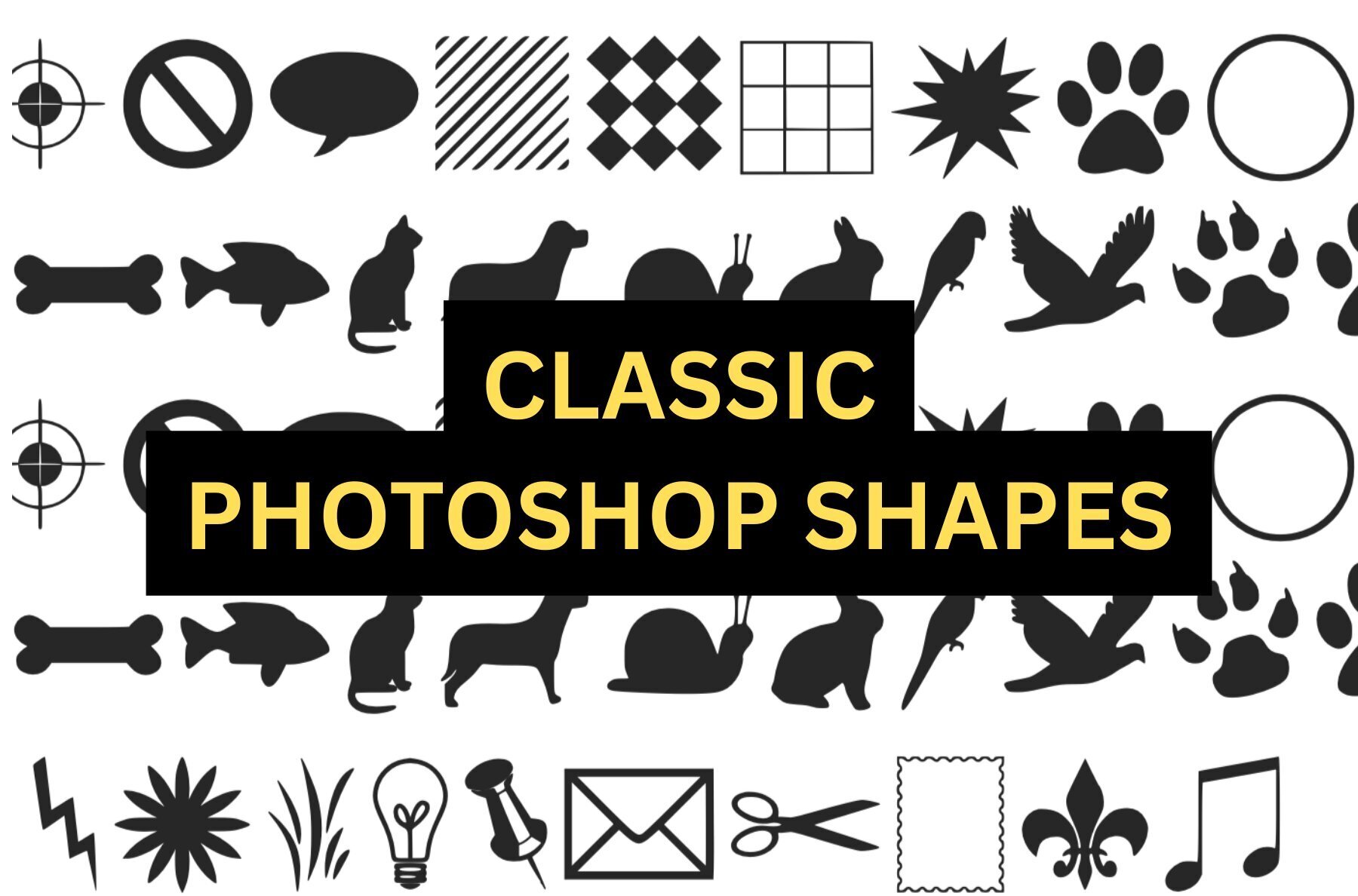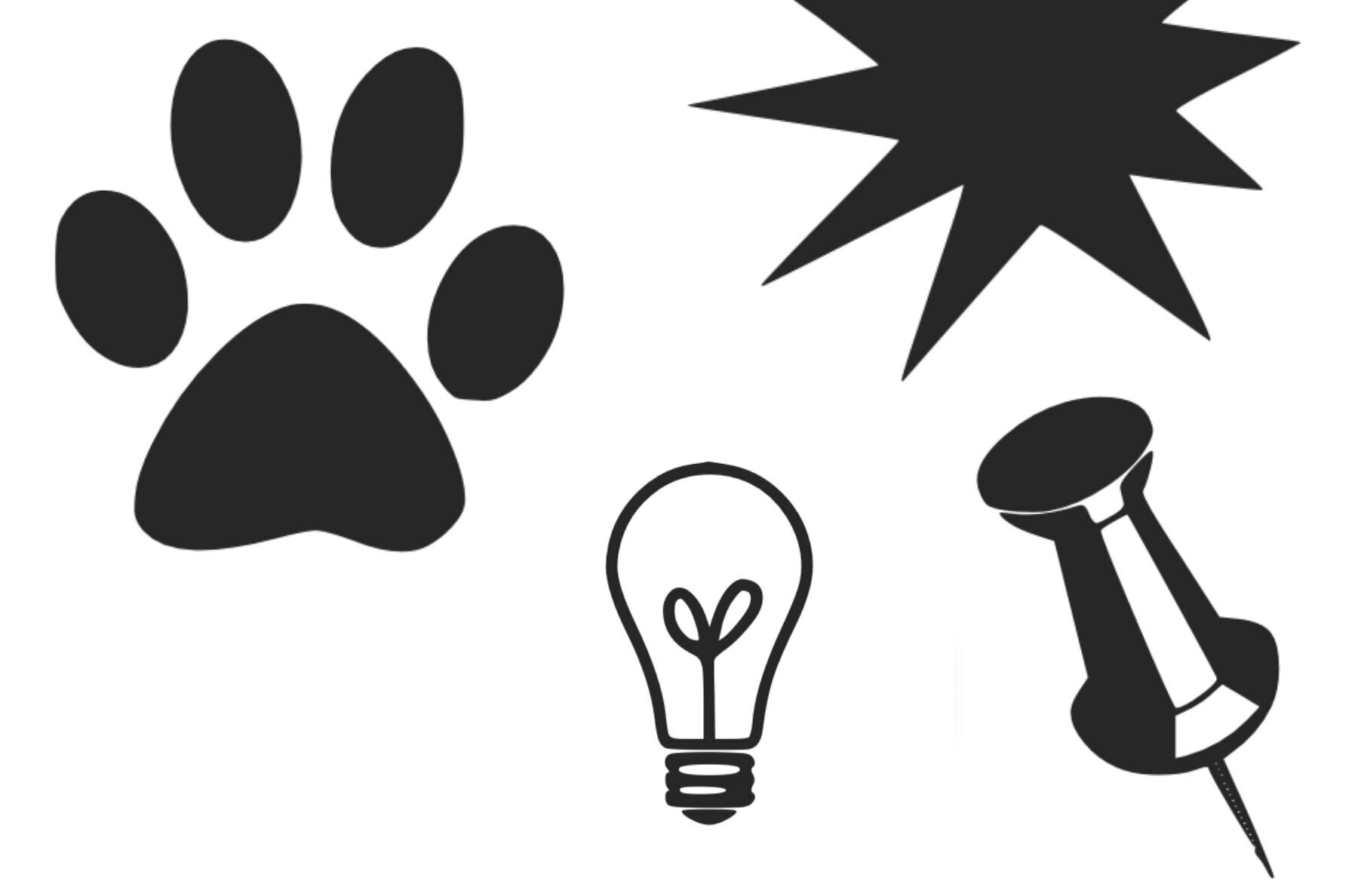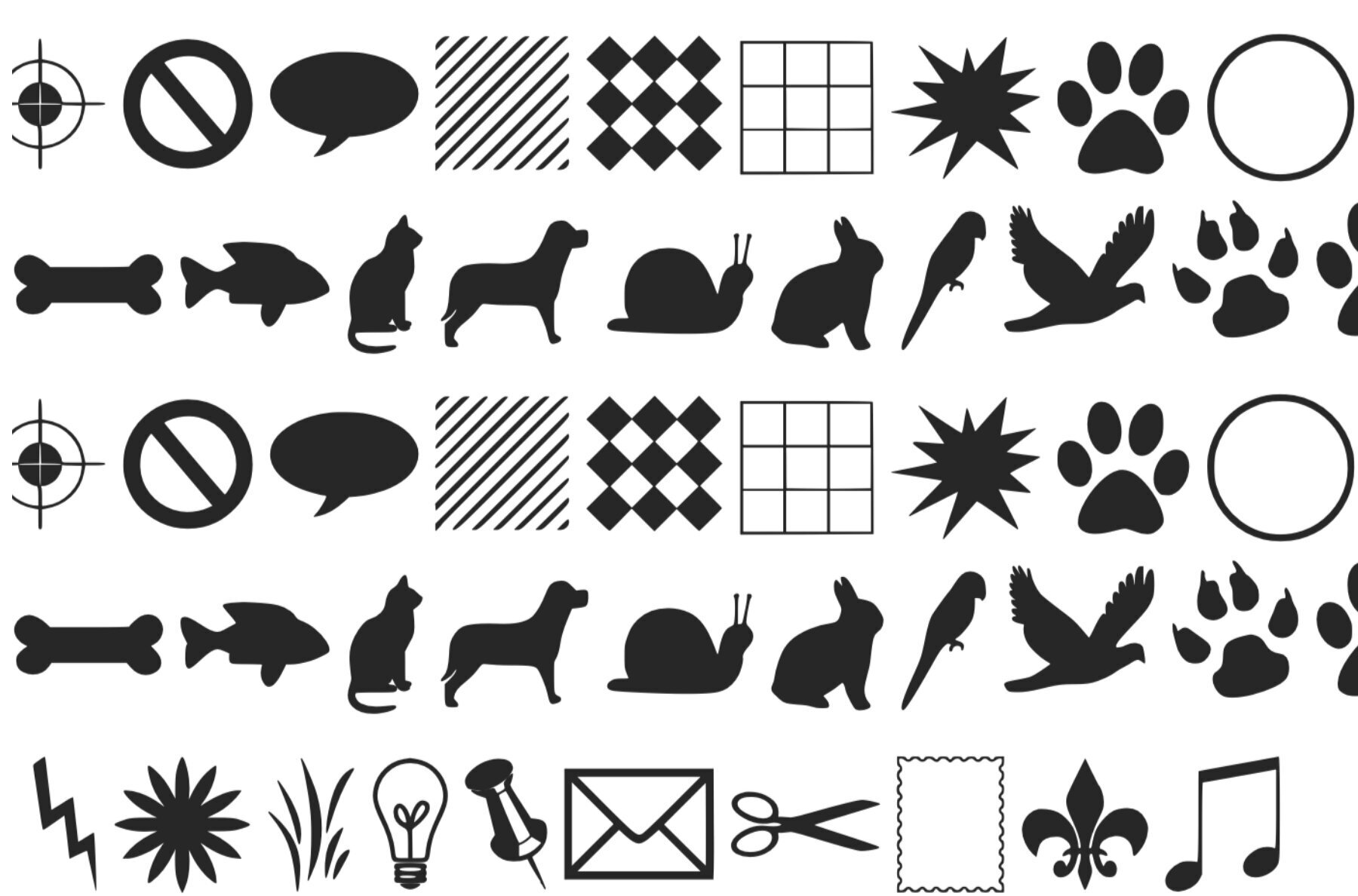
Classic Photoshop Shapes Font
Classic Photoshop Shapes
Enhance your design toolkit with Classic Photoshop Shapes, a dingbat font that brings together all the beloved shapes from traditional Photoshop. Perfect for adding a touch of nostalgia to your project, this collection is a versatile asset that fits seamlessly into any design theme. By expanding your font library with this set, you're unlocking endless creative possibilities.Classic Photoshop Shapes